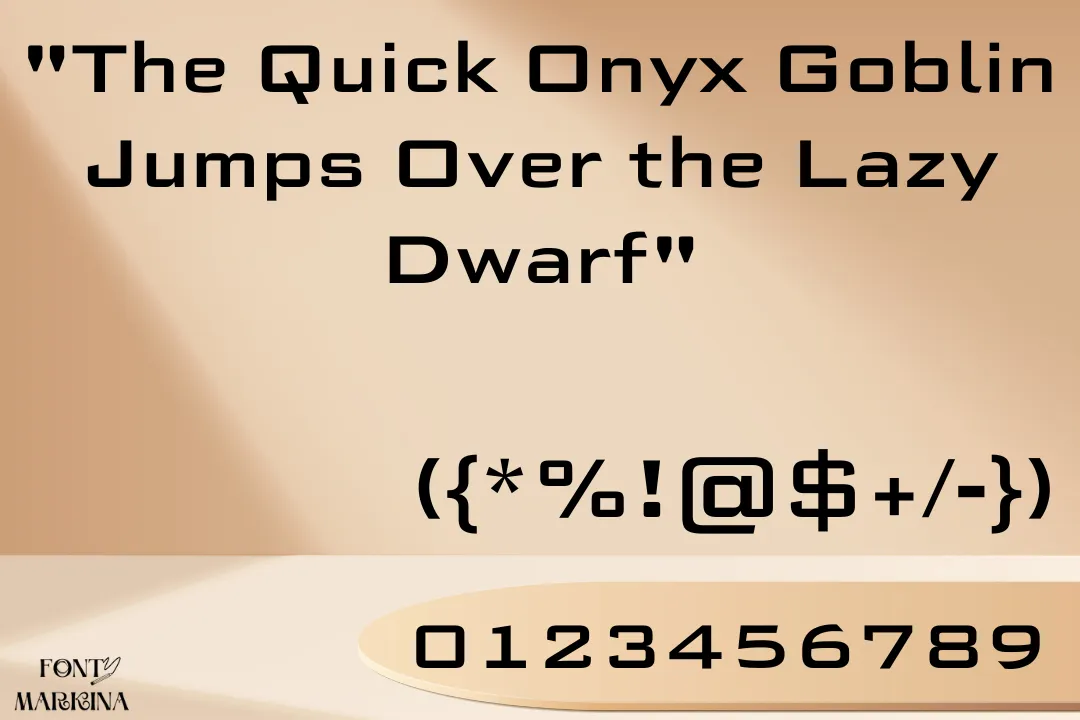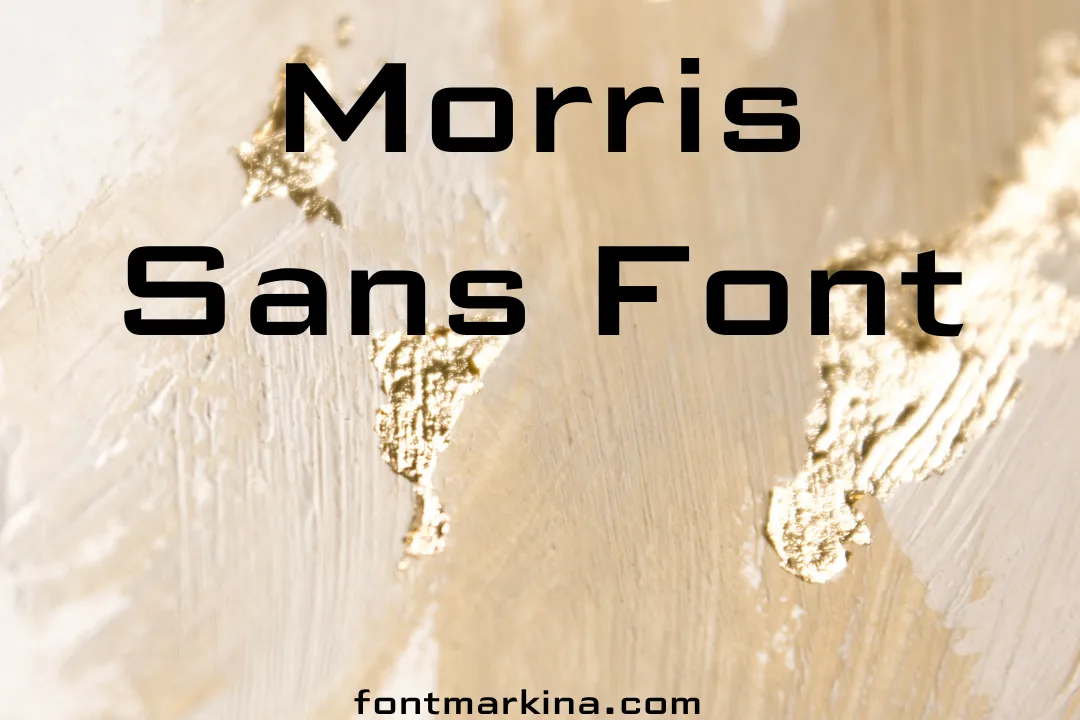
Morris Sans Font is a really wonderful and appealing typeface. It has neat and clean textures. This typeface has 12 classic styles, including Light, Heavy Condensed, and medium condensed.
This eye-catching typeface was designed after the hard work of two manufacturers known by the name Dan Reynolds, and Morris Benton. It is included in the category of sans serif font family. This gorgeous typeface was published through a famous foundry named Linotype.
This awesome family has thick strokes and supports for different major languages. FF Meta font has thick strokes which is much similar to this glorious typeface. Also, it provides an online tool known as a generator tool. After downloading this typeface from our website put it in your projects.
Uses of Morris Sans Font
This stunning family is worth appreciating among all designers because of its styles and weight. If you are an expert graphic designer then you will be able to use it for making game designs, infographics, logos, and other more.
If you are a professional developer and want to get success in your plans then use Nike font and Arial Rounded Mt bold font by making a strong pairing with this typeface. All types of Art channels and video channels can be made by using this font family. Mostly, a great number of newspaper publishers use this family for fashion magazines and articles.
In the Business sector, using this typeface is very important in different fields like making reports and records related to various products and PowerPoint presentations. All of your clients will show the best response after using this typeface.
Morris Sans Font View
| Designer | Dan Reynolds, and Morris Benton |
| Style | Sans Serif |
Karachay (Cyrillic), Southern, Malagasy, Khakas, Norwegian, Kashubian, Khalkha, Ndebele, Kazakh (Cyrillic), Khanty, Kildin Sami, Hill Mari, Hopi, Hungarian, Ibanag, Galician, Hmong, Genoese, German, Moldovan, Portuguese, Southern Sotho (Sesotho), Spanish, Guarani, Greek, Greenlandic, Russian, Interglossa (Glosa), Pangasinan, Oromo, Piedmontese, Finnish, Scots (Gaelic), French, English, Haitian, Slovenian (Slovene), Creole, Quechua, Nahuatl, Nenets, Icelandic, Indian, and Norfolk/Pitcairnese.
Is there any alternative to Morris Sans Font?
Yes, there is a wide variety of typefaces that are similar to this family but the Sf Movie Poster font is much closer to this one.
Can I use Morris Sans Font for my Logos?
Yes, sure you can use this typeface for different types of logos. It is suitable for a lot of other interesting designs.